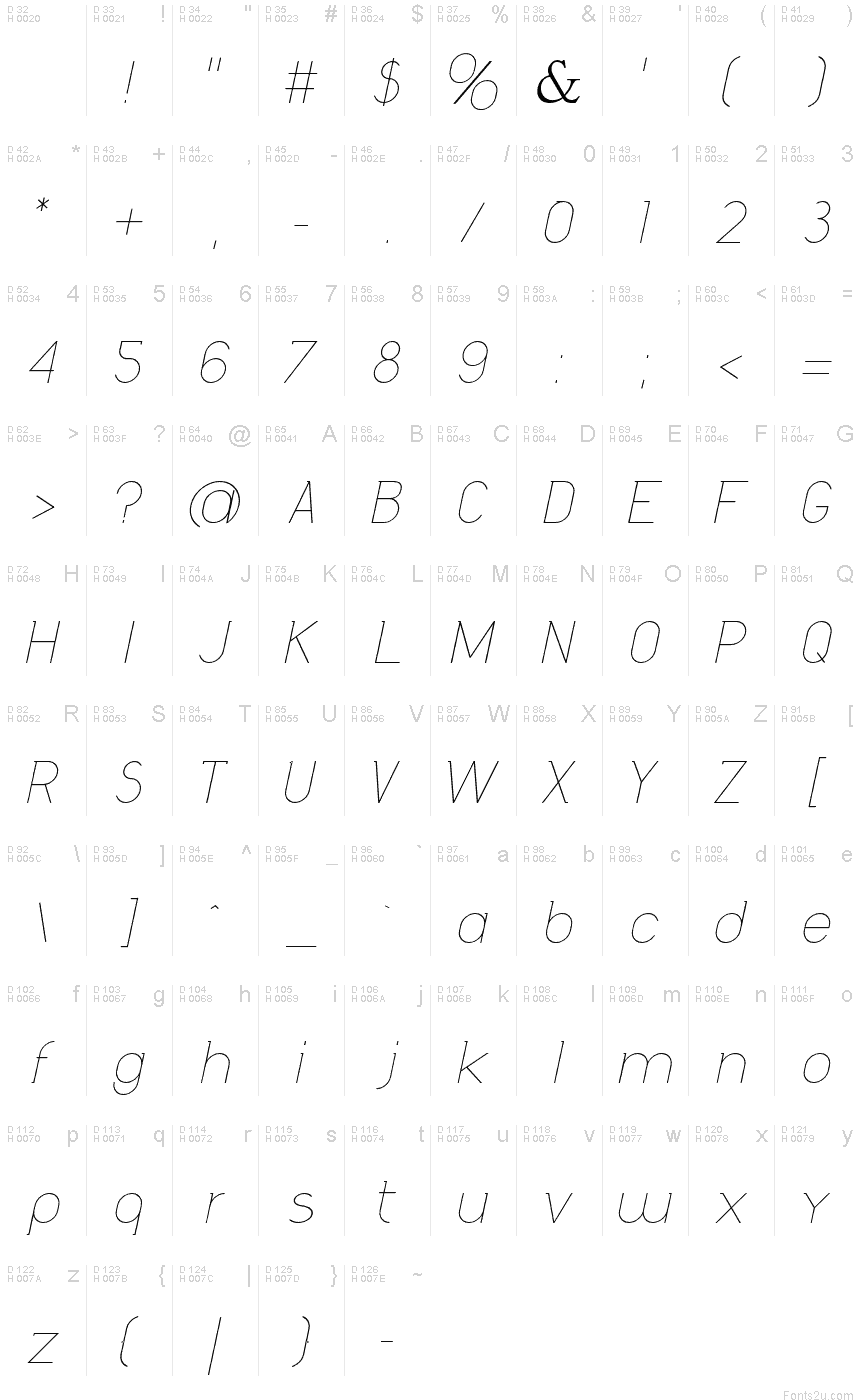
Daniela Italic
The new typeface from David Espinosa. The first one made enterely in computer (without rules, compass and pencil classic design). Enjoy it.